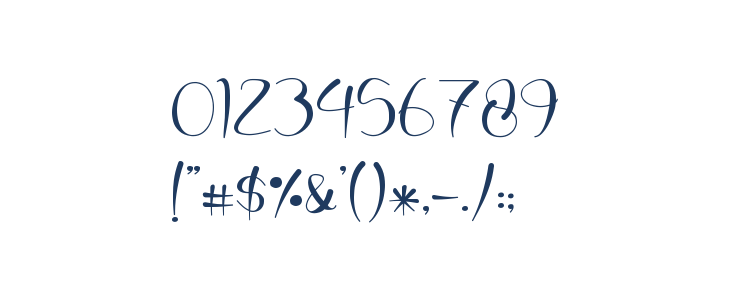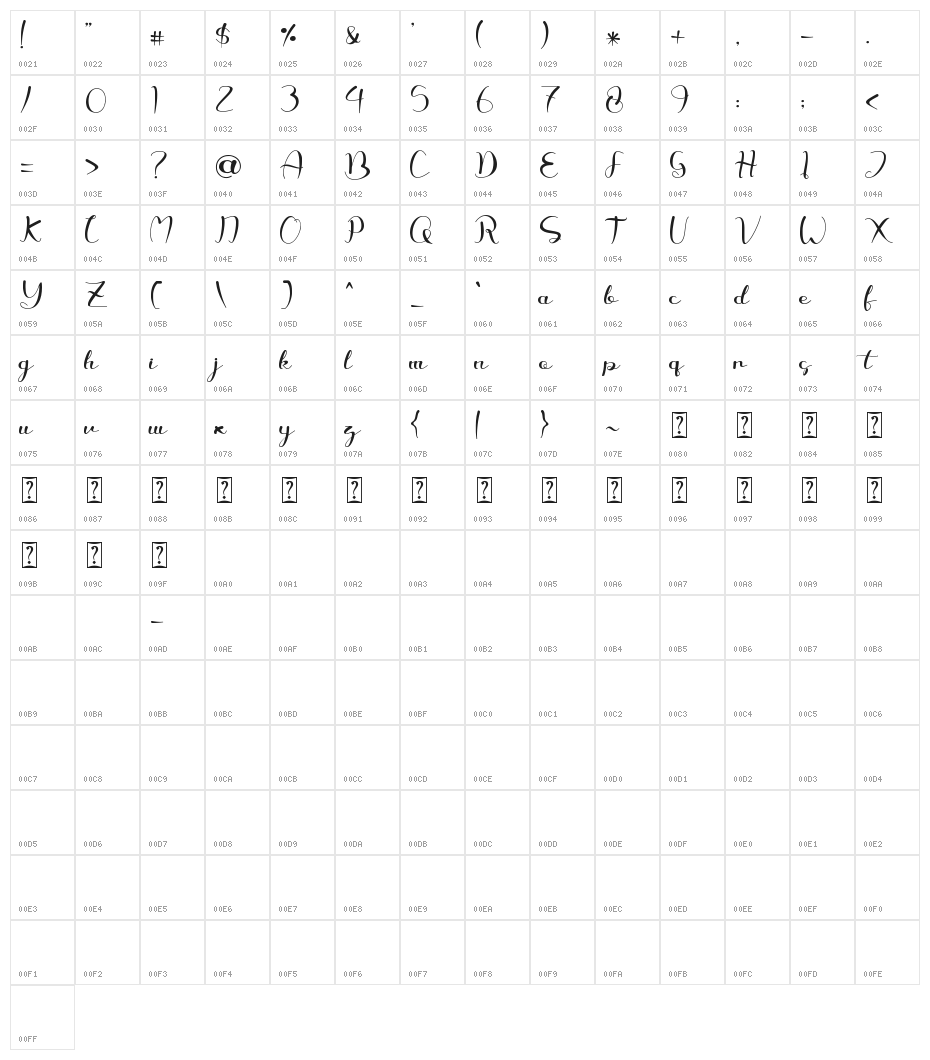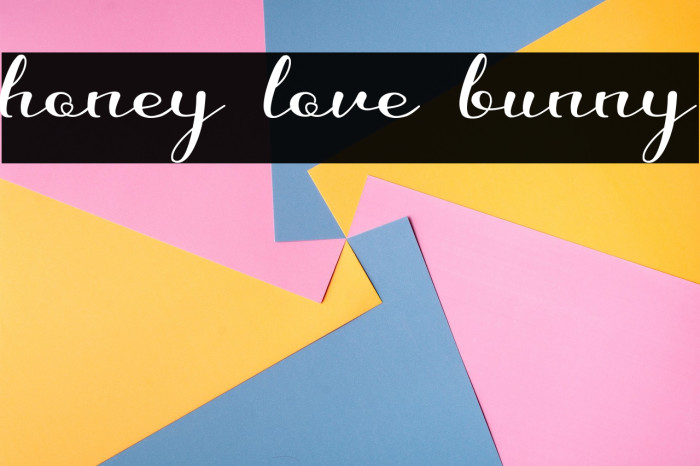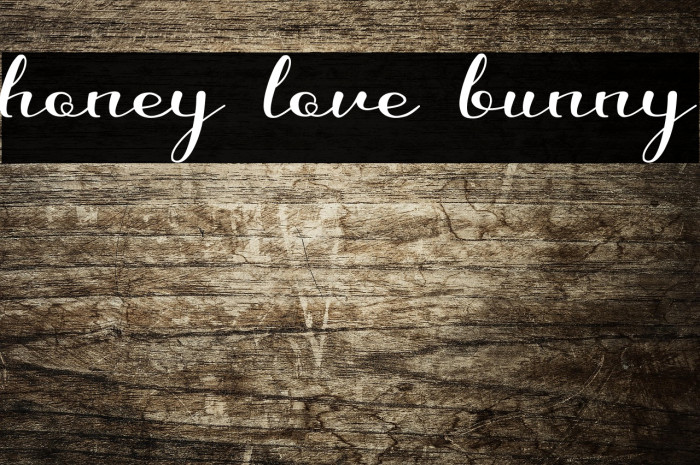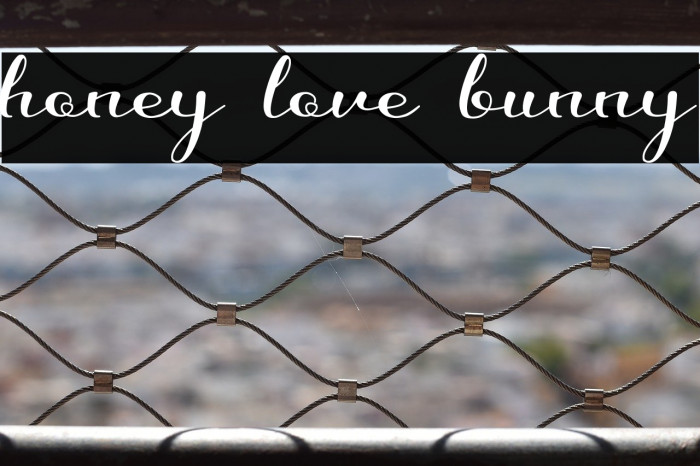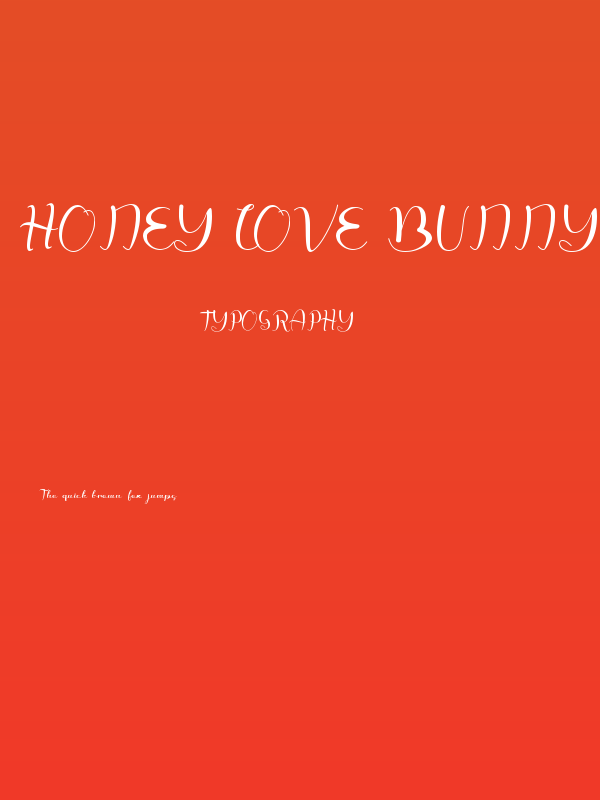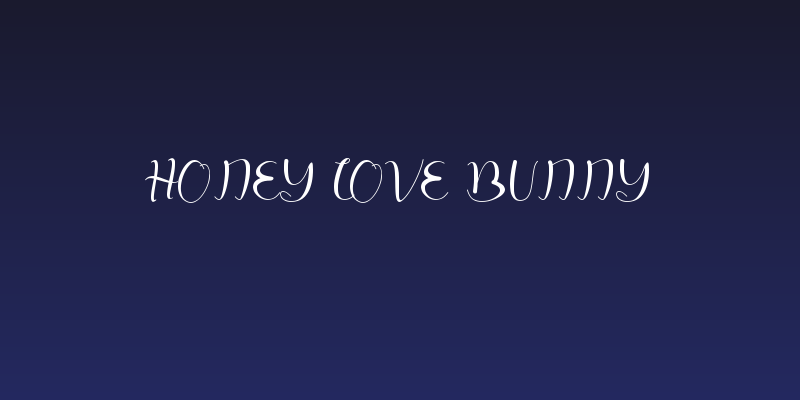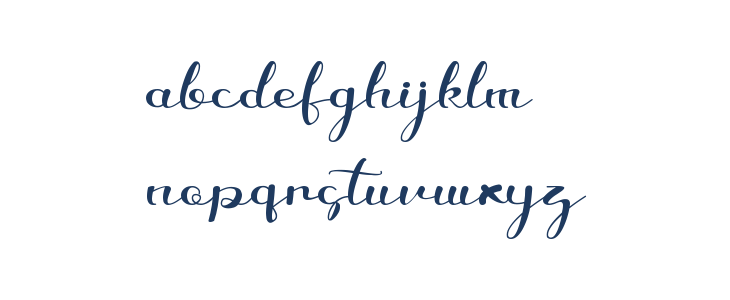
honey love bunny Font
honey love bunny Description
This font exudes a charming and elegant script style, characterized by its flowing, cursive letterforms. Each character is crafted with a sense of fluidity and grace, featuring delicate loops and swirls that add a touch of sophistication. The uppercase letters stand tall with a slight slant, while the lowercase letters maintain a consistent rhythm, enhancing readability. The numerals are stylishly integrated, complementing the overall aesthetic. Special characters are thoughtfully designed, maintaining the font's cohesive look. This font is perfect for projects that require a personal, handwritten touch.